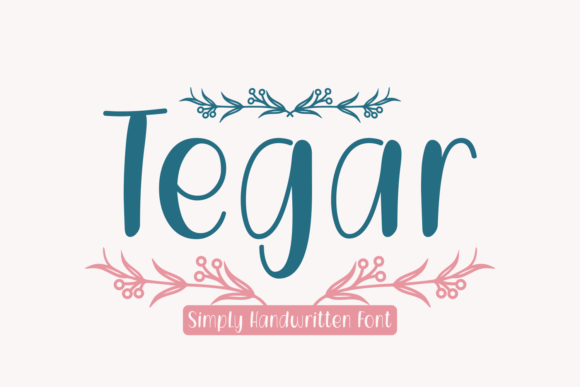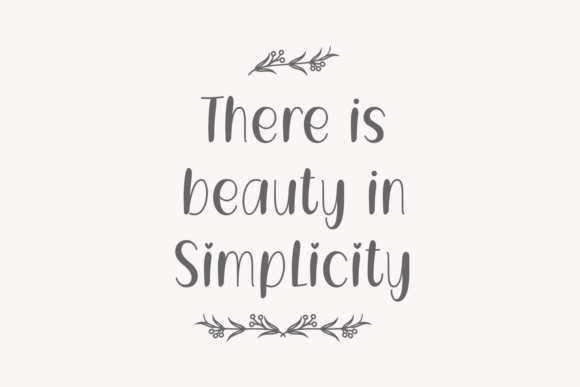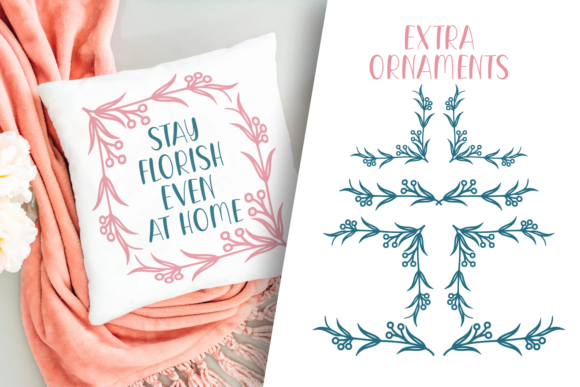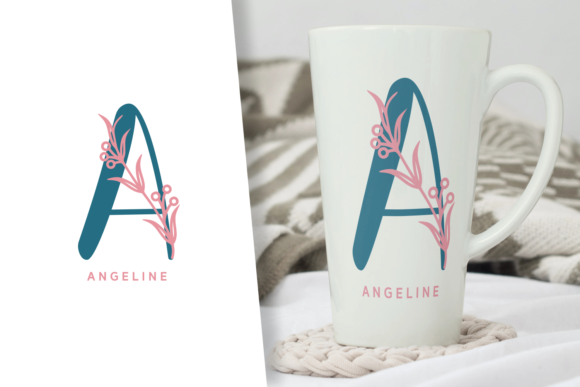
Tegar Font
About Tegar Font
Tegar is a delicate and elegant handwritten font that exudes a flowing and graceful vibe. Its beautiful and well-balanced characters make it a versatile choice that complements a wide range of design projects. Whether you’re working on invitations, logos, branding, quotes, or any other creative endeavor, Tegar can breathe life into your ideas and elevate your designs.
The font’s graceful strokes and smooth lines create a sense of elegance and sophistication. Each letter is meticulously crafted to maintain a harmonious balance, resulting in a visually pleasing and cohesive look. Tegar’s timeless appeal makes it suitable for various design styles, from classic and romantic to modern and minimalist.
When used in invitations and stationery, Tegar adds a touch of refinement and sophistication. Its flowing and elegant nature enhances the overall aesthetic of wedding invitations, event announcements, and personalized cards. The font’s versatility allows it to adapt to different themes and design elements, making it a perfect choice for any occasion.
In branding and logo design, Tegar brings a sense of elegance and professionalism. Its delicate and well-balanced characters create a memorable visual identity that stands out. Whether it’s for a luxury brand, a boutique business, or a creative agency, Tegar adds a touch of sophistication and class to your brand’s image.
When incorporating Tegar into quotes and typography-based designs, it exudes a sense of calmness and serenity. The flowing nature of the font enhances the visual impact of meaningful words and phrases, creating a harmonious and captivating composition. Its versatility allows it to be used in various contexts, including social media posts, inspirational prints, and website banners.
Overall, Tegar is a versatile and elegant handwritten font that brings a delicate and flowing touch to your design projects. Its beautiful and well-balanced characters make it a perfect choice for a wide range of applications, from invitations and branding to quotes and typography-based designs. Add Tegar to your creative ideas and witness how it brings them to life with its timeless charm and elegance.